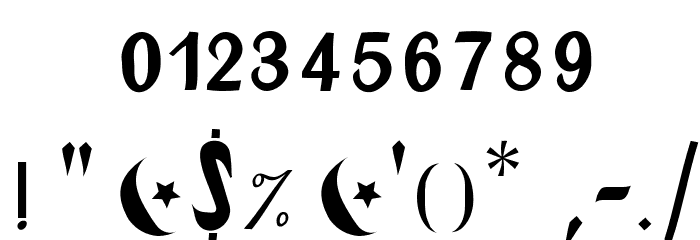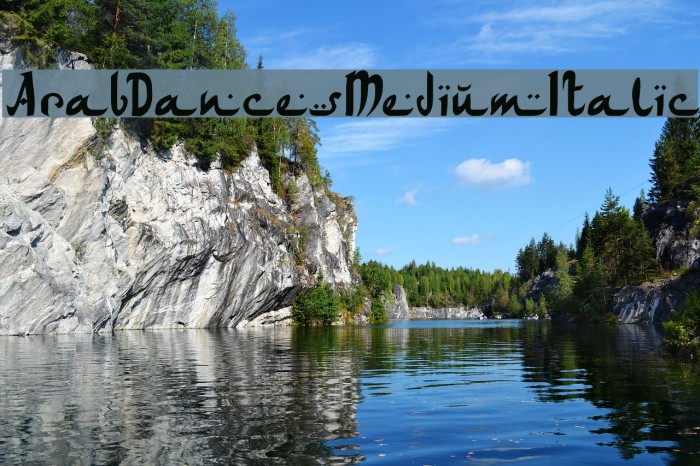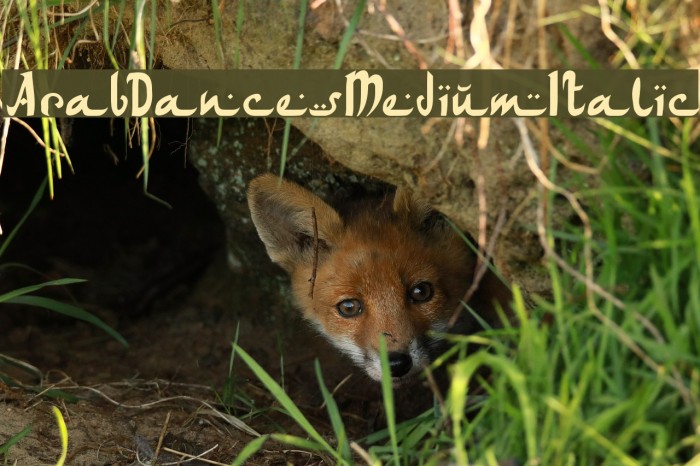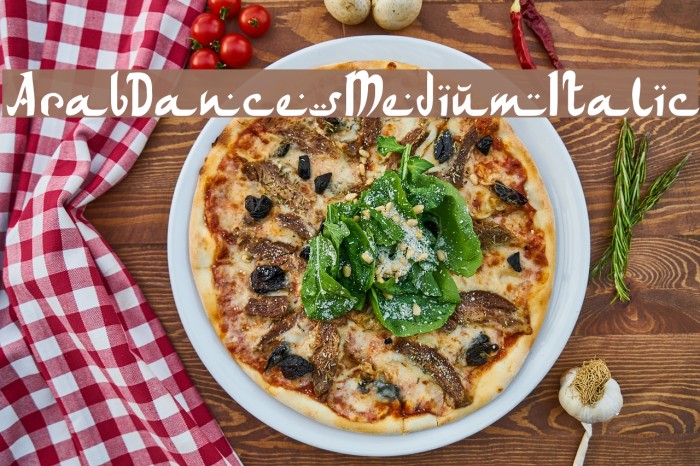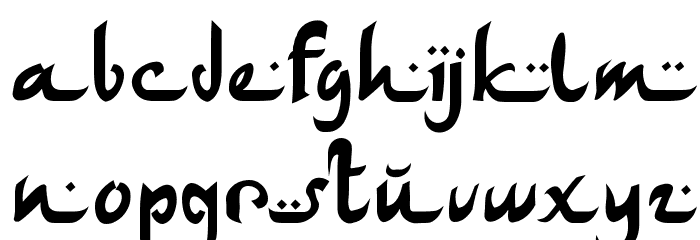
ArabDancesMediumItalic Font
This font features a unique blend of modern and traditional elements, characterized by its flowing, italicized forms and distinctive decorative accents. The uppercase letters exhibit a bold presence with curved strokes and intricate details, while the lowercase letters maintain a consistent style with a slightly more compact form. The numerals are stylized to match the overall aesthetic, offering a cohesive look across all characters. Special characters are thoughtfully designed, incorporating cultural motifs that enhance the font's thematic appeal. The overall design is both artistic and functional, making it suitable for a variety of creative applications.
A decorative, italicized font with cultural motifs and bold, flowing strokes.
• Proposed Projects: Ideal for cultural event posters, artistic branding, and themed invitations.
• Category: Decorative/Display
• Bold: Yes
• Italic: Yes
• Weight: Regular
• Width: Normal
• Character Spacing: Normal
• Contrast: Medium
• Overall Style: Decorative
• Use Case: Headlines, Logos, Posters